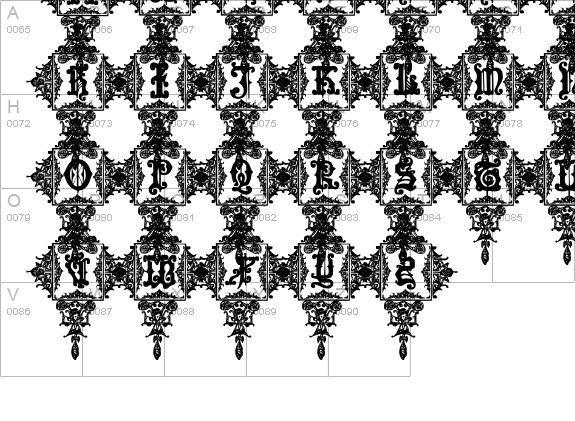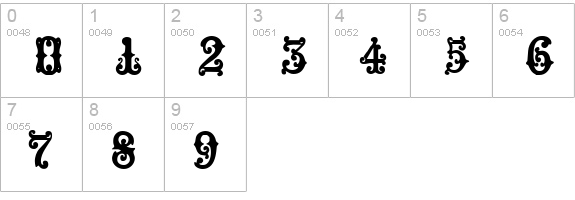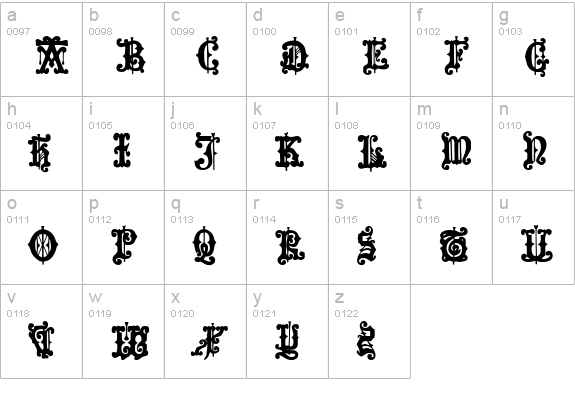
Medieval Sorcerer Ornamental Font Details
The Medieval Sorcerer Ornamental font is a mystical and enchanting typeface that transports you to a world of ancient magic and sorcery. Its intricate and ornate design is reminiscent of medieval manuscripts and spell books, perfect for adding a touch of mystique to your projects. This unique font features elaborate swirls, curves, and embellishments that evoke a sense of mystery and power. Each letter is carefully crafted to exude an aura of ancient wisdom and arcane knowledge, making it ideal for fantasy-themed designs, book covers, and invitations. Best of all, the Medieval Sorcerer Ornamental font is freely available to download at FontsMarket.com. Embrace the magic of the past and unleash your creativity with this captivating and mesmerizing typeface. Let your imagination run wild as you weave spells and incantations with this enchanting font at your fingertips.